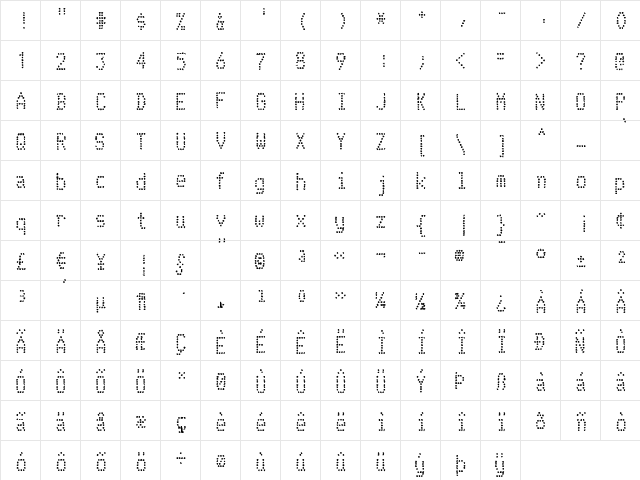
Telidon Ink Regular
| Foundry | Typodermic |
Design Context for Telidon Ink Typeface
Telidon Ink takes a measured approach to typography — its balanced proportions and neutral character make it a reliable workhorse for both digital and print work.